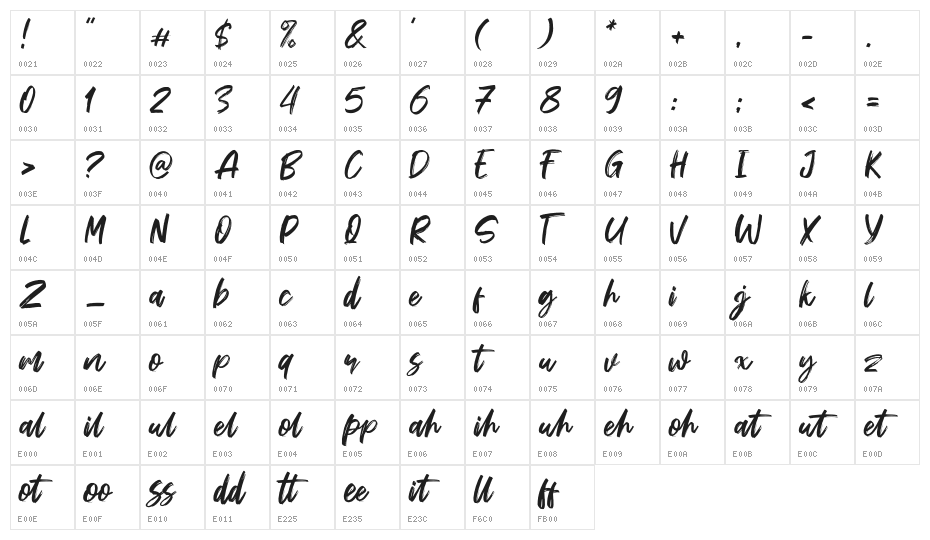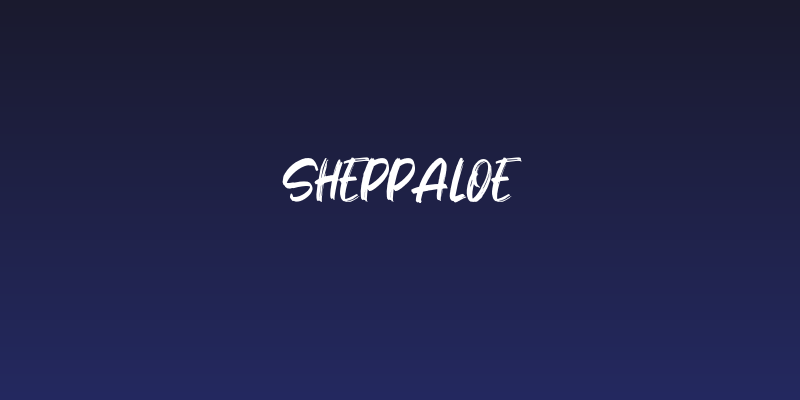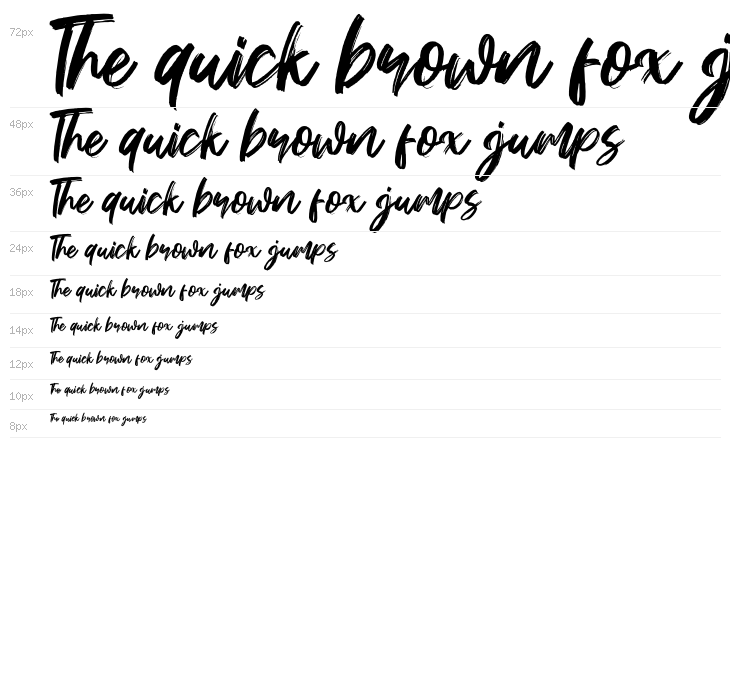
Sheppaloe Font
Sheppaloe Description
This font features a bold, expressive style with a brush-like texture that gives it a dynamic and energetic appearance. The strokes are thick and uneven, creating a sense of movement and spontaneity. The uppercase and lowercase letters are crafted with a casual flair, while the numbers and special characters maintain the same lively aesthetic. The overall look is modern and artistic, making it suitable for projects that require a personal touch or a creative edge.
| Overall Style | Modern, Artistic |
| Use Case | Logos, Headlines, Posters |
| Proposed Projects | Ideal for branding, posters, social media graphics, and any creative projects that need a bold, artistic touch. |